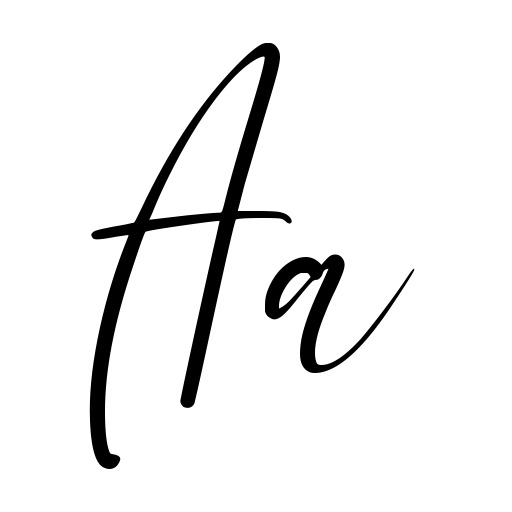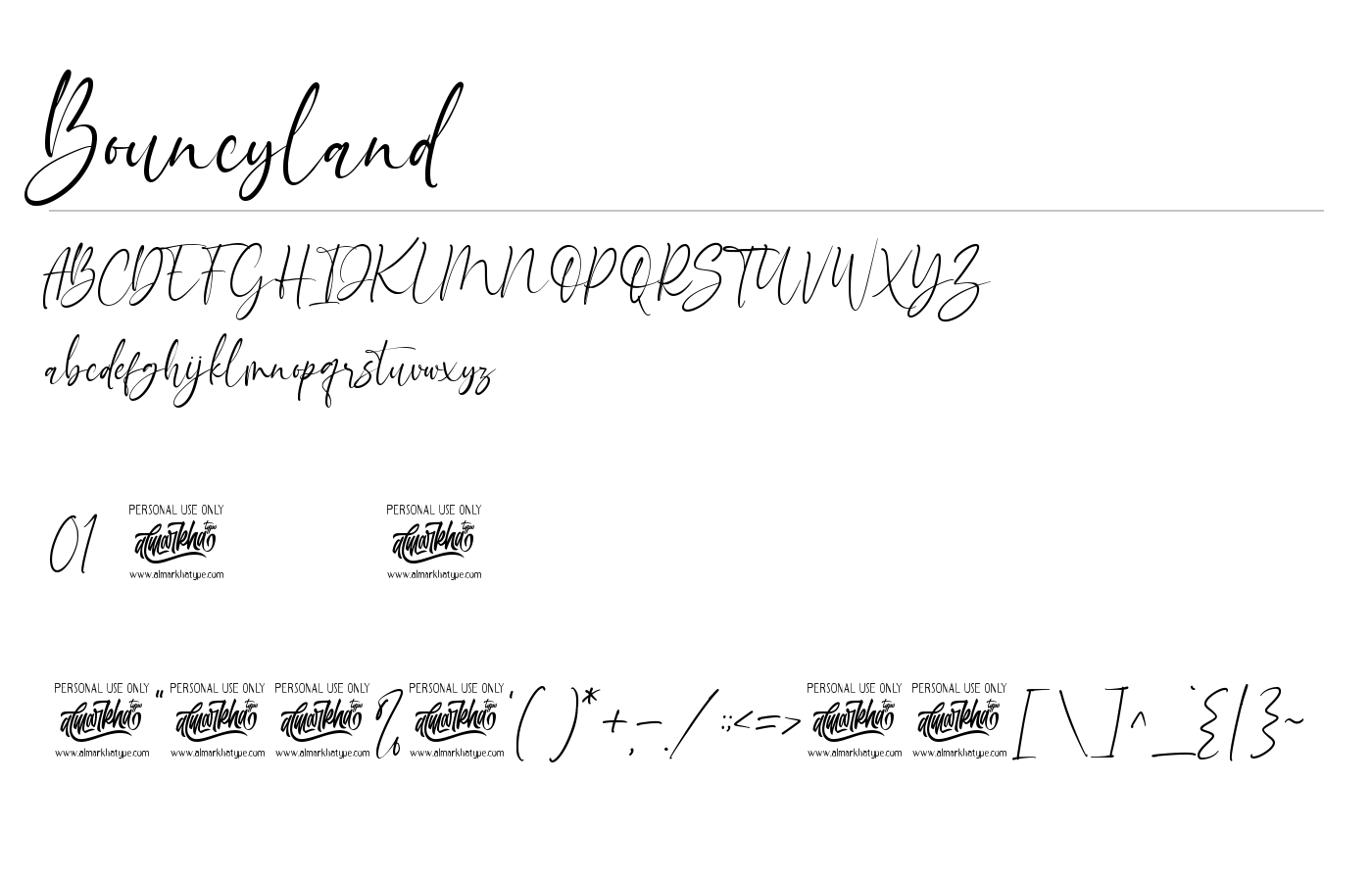
Bouncyland is a delicate, handwritten script font with a playful and elegant personality. Its thin, flowing strokes and varying letter heights create a lively, casual feel perfect for invitations, branding, and creative projects that seek a personal, charming touch. This font works well for designs that want to convey warmth and individuality in a refined yet approachable way.
Bouncyland Font
About Bouncyland Font
| Font family | Bouncyland Font |
| Designer | Almarkhatype Studio 2021 - Abdul Malik - Adriansyah |